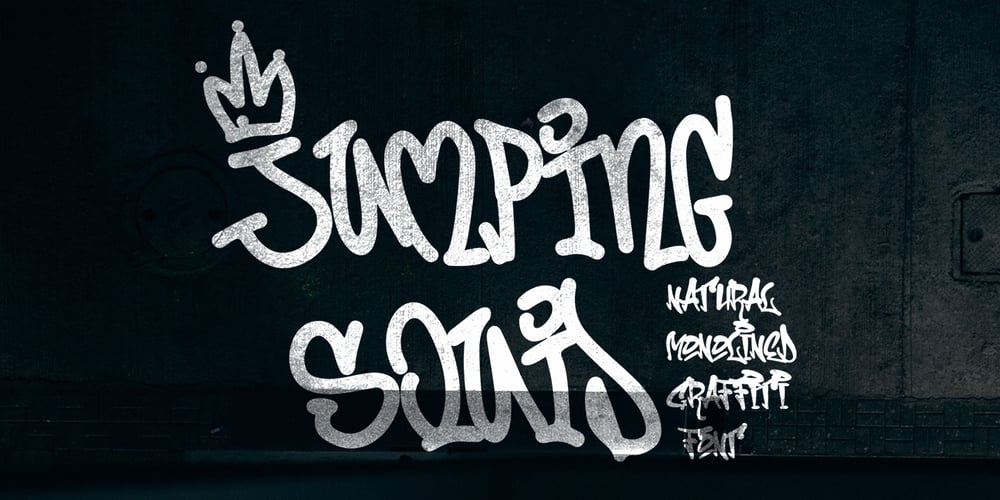
Jumping Squid Graffiti Font Family was designed by Sipanji and published by Sipanji21. Jumping Squid Graffiti contains 1 styles and family package options. Jumping Squid is a Handwritten font with a Natural monoline graffiti style, perfect for your awesome urban designs. It will elevate a wide range of design projects to the highest levels, be it branding, headings, designs, invitations, signatures, logos, labels, and much more!